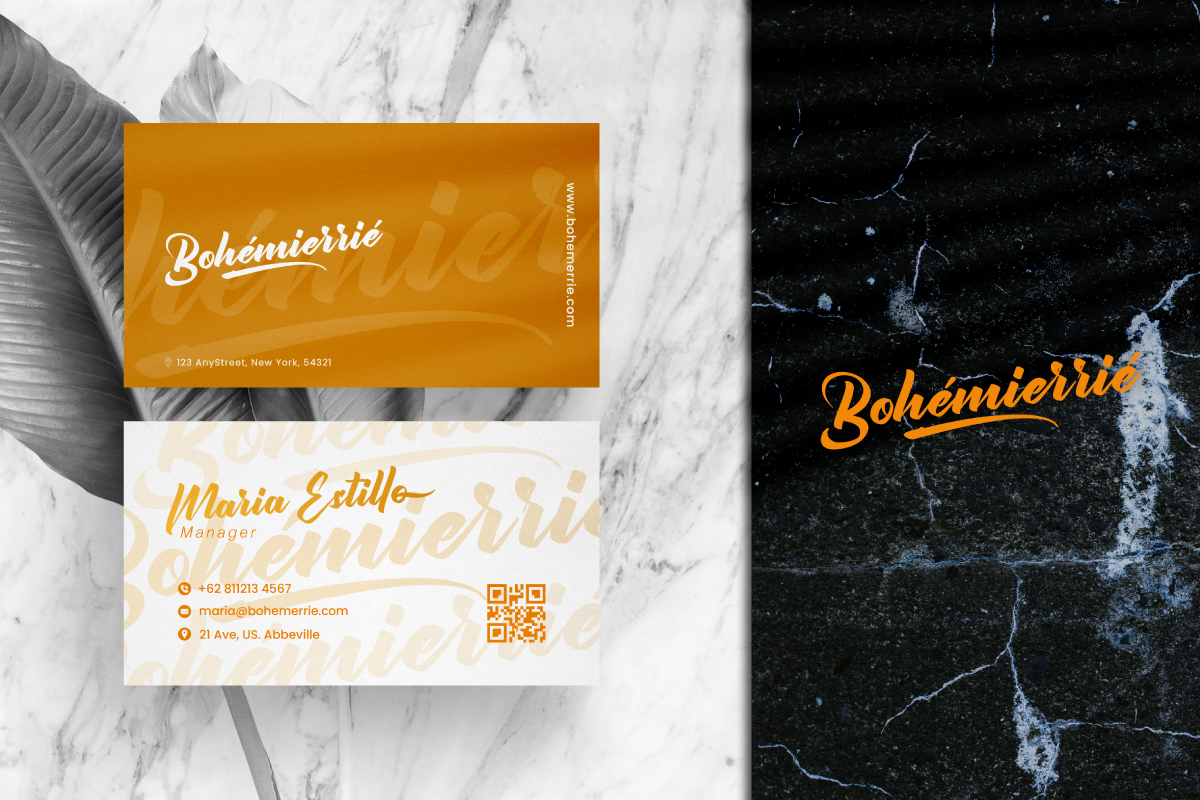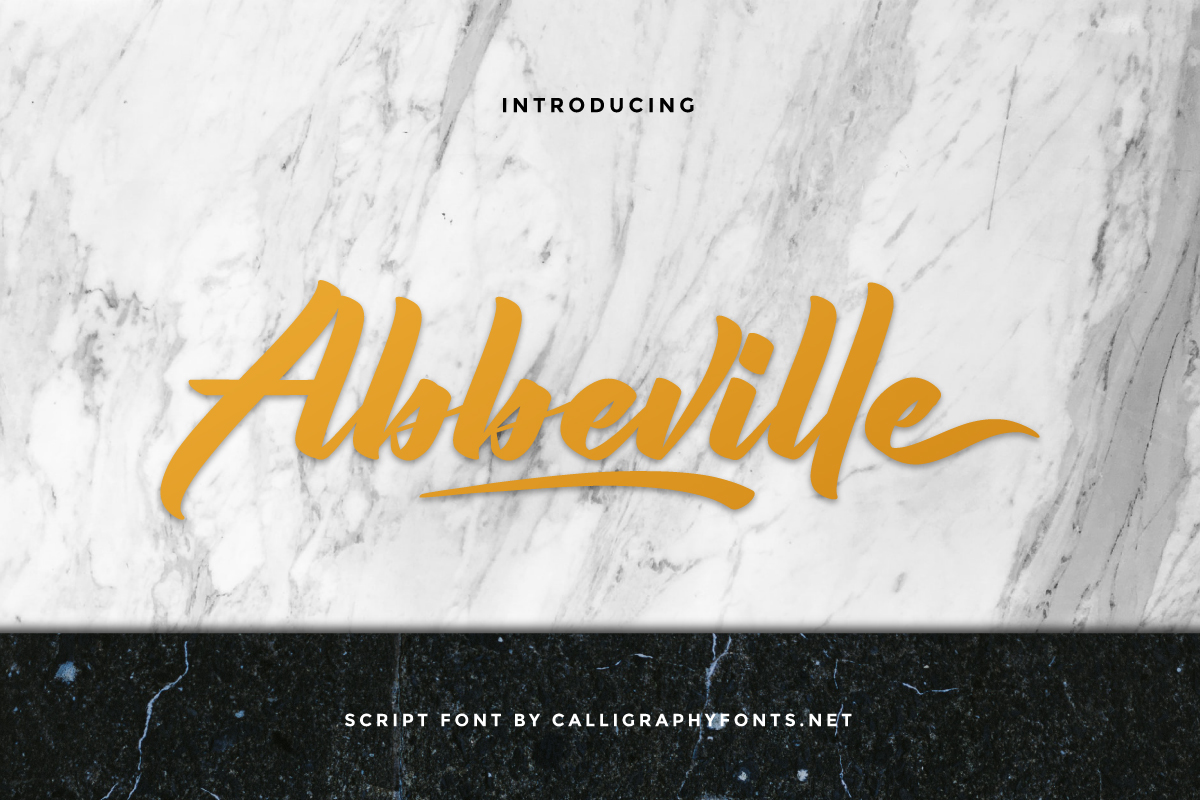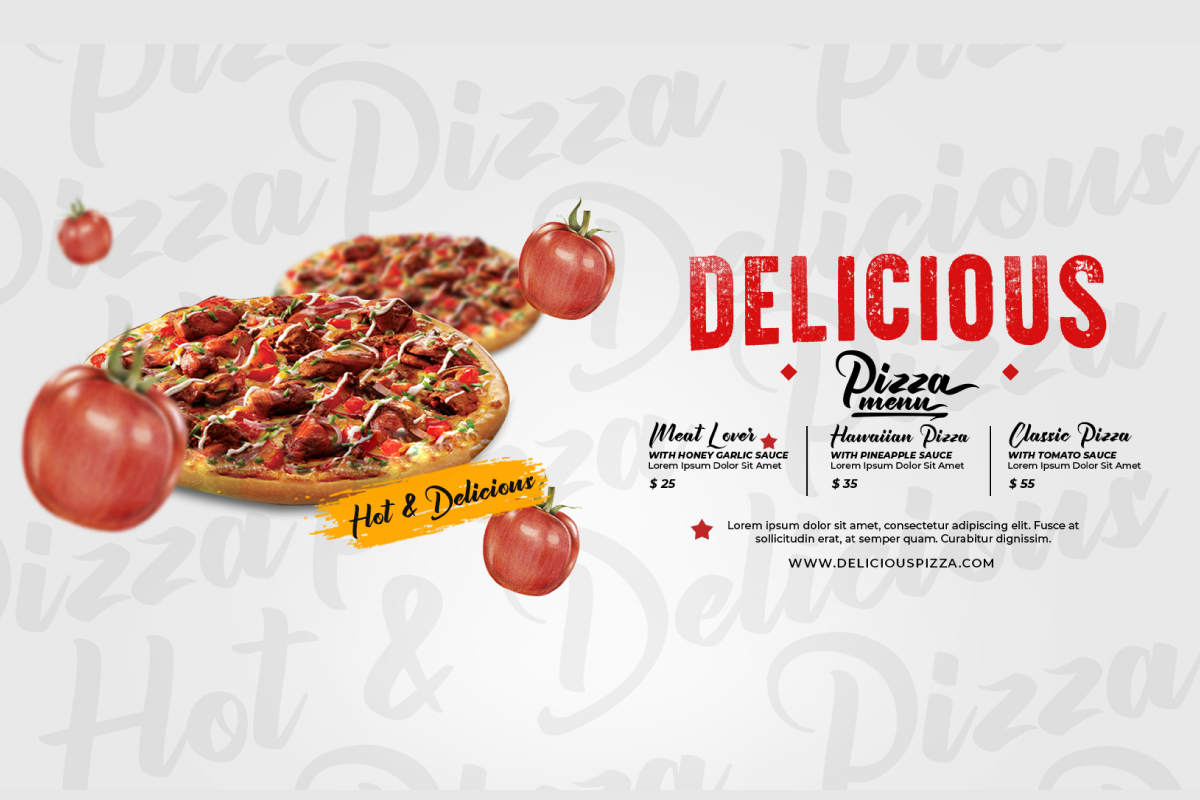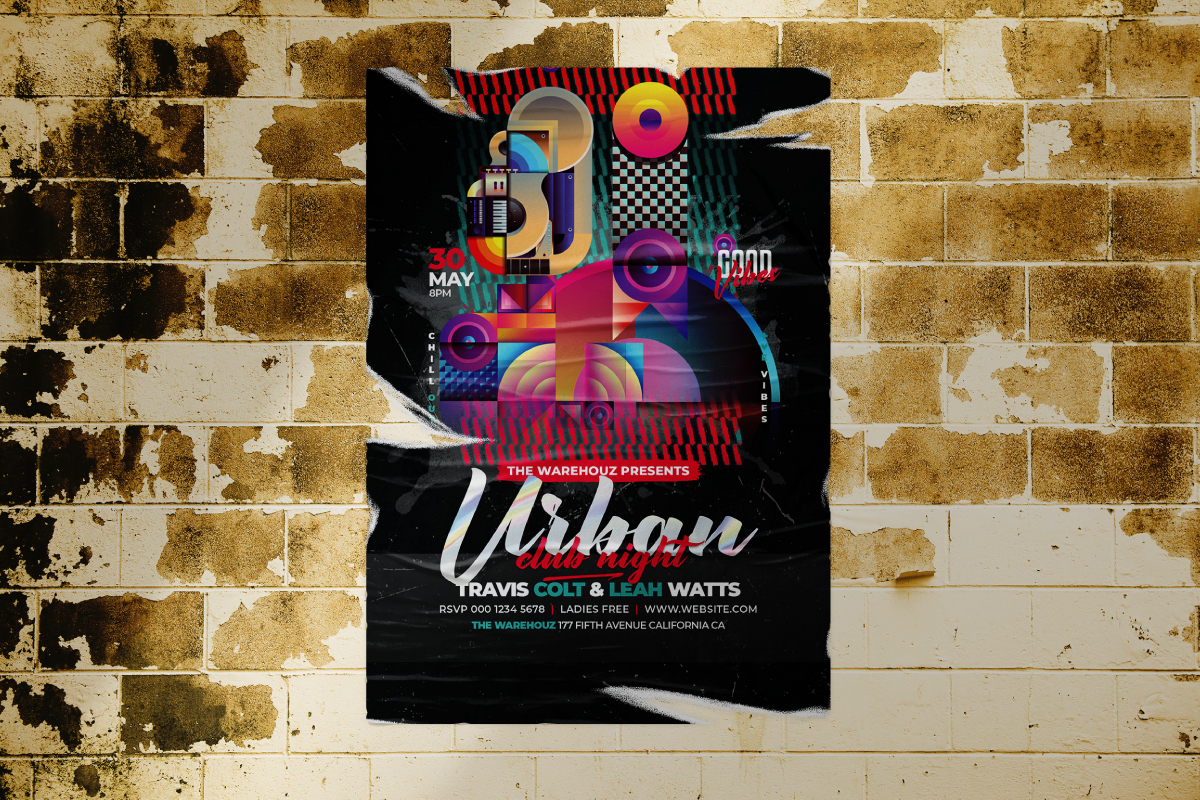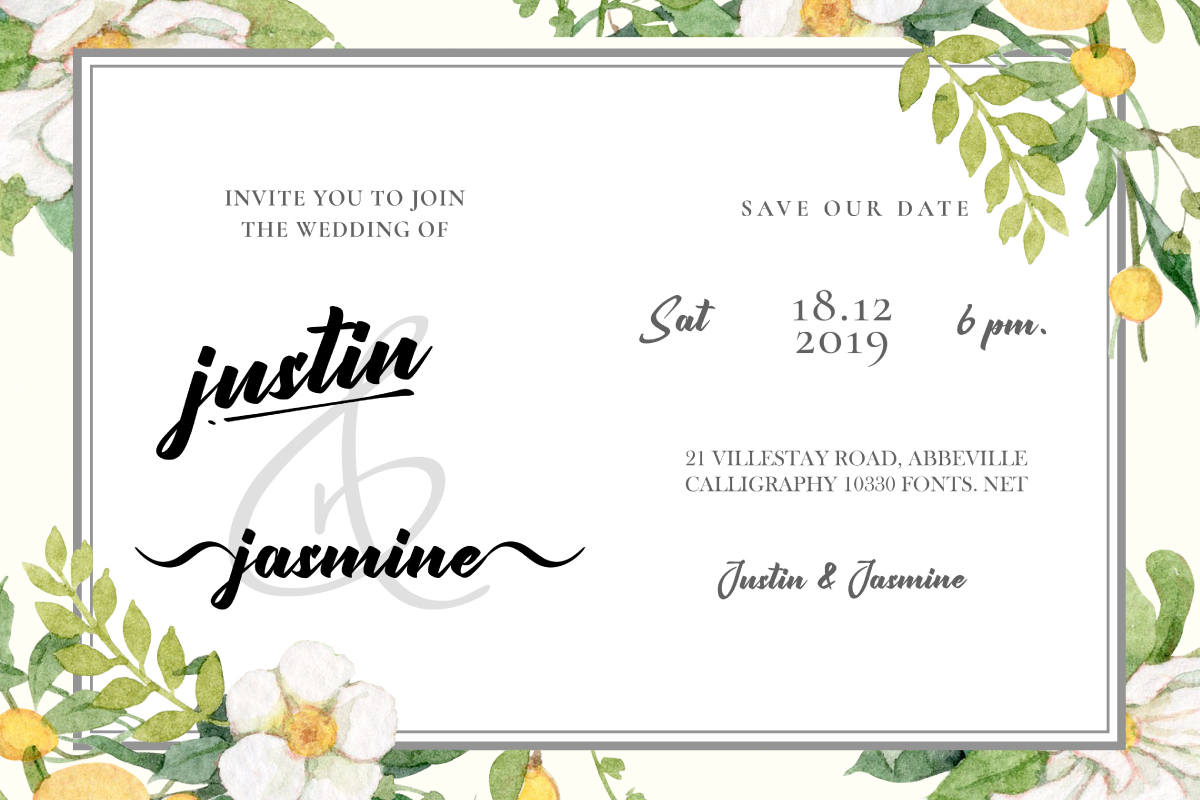
Abbeville Font
Abbeville Script Font
This is a stylish handwritten calligraphy font. It has unique a flawless looks that are modern, elegant, luxurious, professional and sophisticated style. With commercial license, you can use it for logo, brandings, flyer, poster, product packaging and all designs needs.